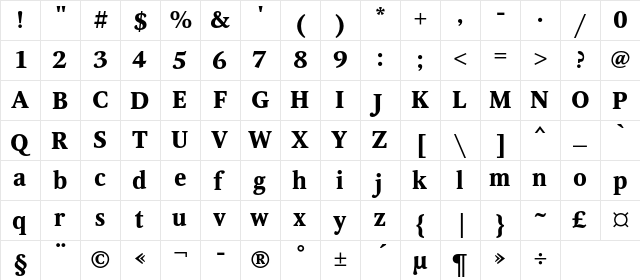
OctavaC Bold
Design Context for OctavaC Typeface
OctavaC takes a measured approach to typography — its balanced proportions and neutral character make it a reliable workhorse for both digital and print work. The heavy weight commands attention and anchors typographic hierarchies.
Pro Tip: Pair OctavaC with a font of contrasting weight or personality to build a more expressive typographic hierarchy.